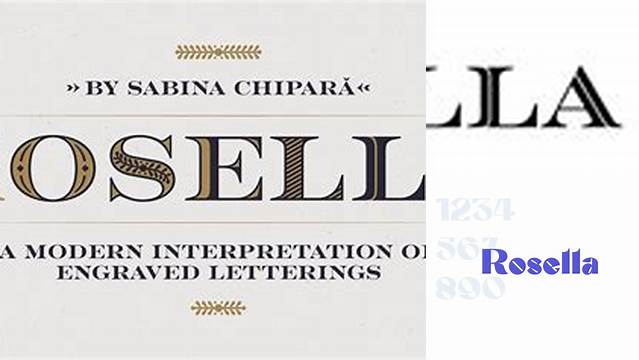
Hey guys! Ever stumbled upon a font that just clicks? That's Rosella Inline for me. It’s got this unique vibe that makes it perfect for a ton of different projects. Whether you’re designing a logo, crafting some killer social media graphics, or even working on a website, Rosella Inline can add that extra touch of awesome. Now, let’s dive into everything you need to know about this fantastic font, including how to snag it for free in TTF format. Trust me, by the end of this guide, you'll be a Rosella Inline pro!
What is Rosella Inline Font?
Okay, so first things first: what exactly is Rosella Inline? It's a font that's characterized by its stylish inline design. This means that within each letter, there are lines running through, giving it a distinctive and somewhat retro feel. The font is versatile, making it suitable for both headers and body text, depending on the specific application. Rosella Inline stands out due to its clean lines and balanced aesthetic, ensuring readability while maintaining a unique visual appeal.
When you're thinking about design projects, Rosella Inline can be a real game-changer. For logos, its unique structure helps to create a memorable brand identity. In social media, it grabs attention and makes your posts pop. For websites, it adds a touch of sophistication and uniqueness that can set you apart from the competition. The font’s appeal lies in its ability to blend classic design principles with a modern twist, making it a favorite among designers looking to make a statement.
Why Choose Rosella Inline for Your Projects?
So, why should you pick Rosella Inline over the countless other fonts out there? Well, for starters, it's super versatile. Whether you're working on a sleek, modern design or something with a more vintage feel, Rosella Inline can adapt. Its clean, geometric lines give it a contemporary edge, while the inline detailing nods to classic typography. This makes it a fantastic choice for a wide range of projects, from branding and advertising to web design and print materials.
One of the key benefits of Rosella Inline is its readability. Despite its decorative elements, the font remains highly legible, ensuring that your message comes across clearly. This is particularly important for body text and smaller applications, where clarity is paramount. Additionally, Rosella Inline pairs well with other fonts, allowing you to create visually interesting and dynamic layouts. You can combine it with a simple sans-serif for a modern look or a classic serif for a more traditional feel. The possibilities are endless!
Conclusion: Unleash Your Creativity with Rosella Inline